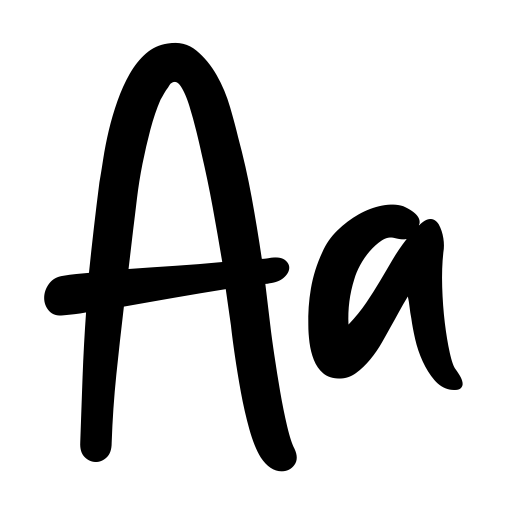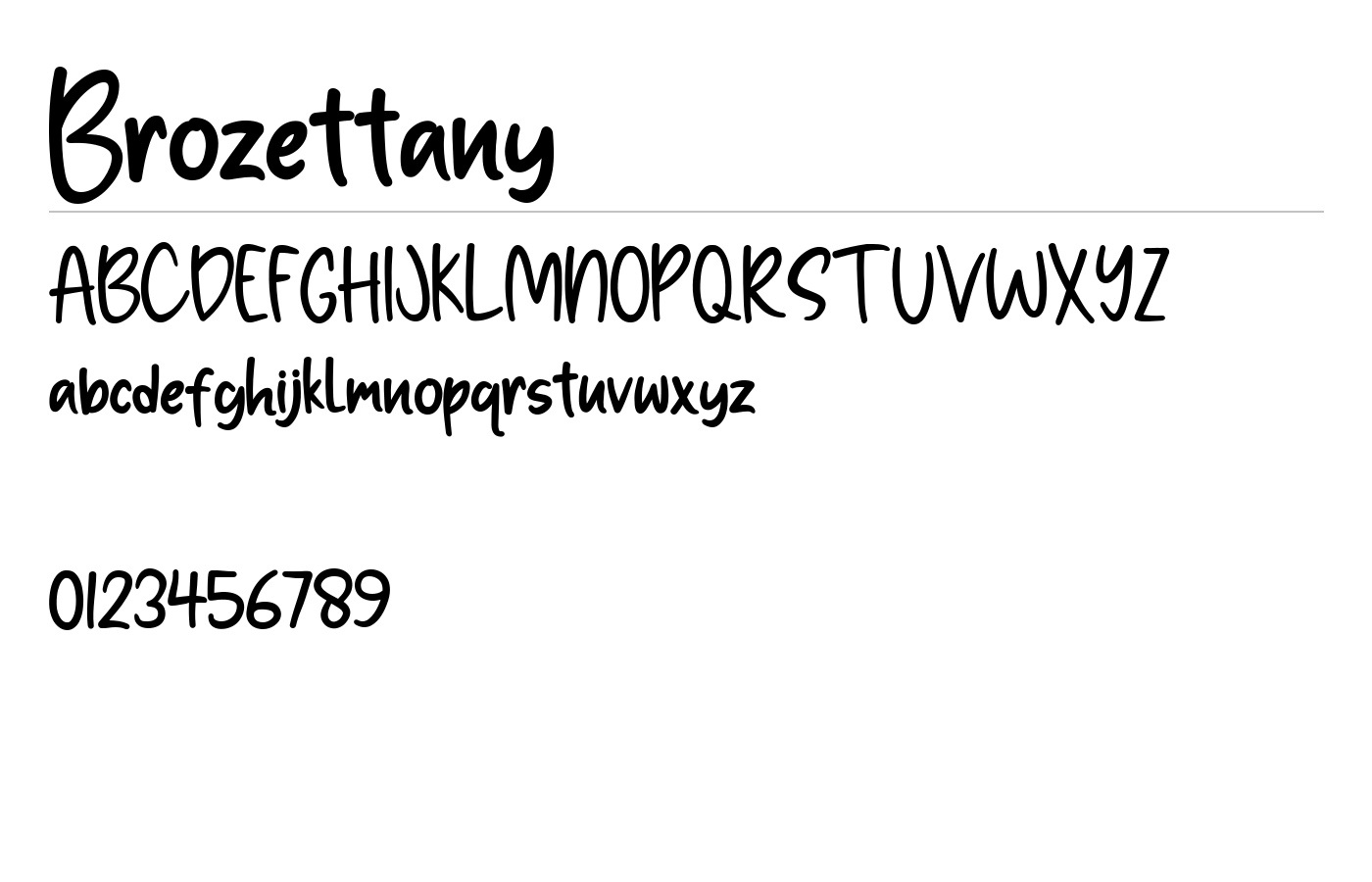
Brozettany is a playful, casual script-style font with a handwritten feel, featuring smooth, rounded strokes and a friendly personality. Its moderate weight and slightly condensed letterforms make it ideal for creative and informal use, such as branding, invitations, or social media graphics where a personal touch is desired. This font works well in contexts needing approachable, warm communication without sacrificing readability.
Brozettany Font
About Brozettany Font